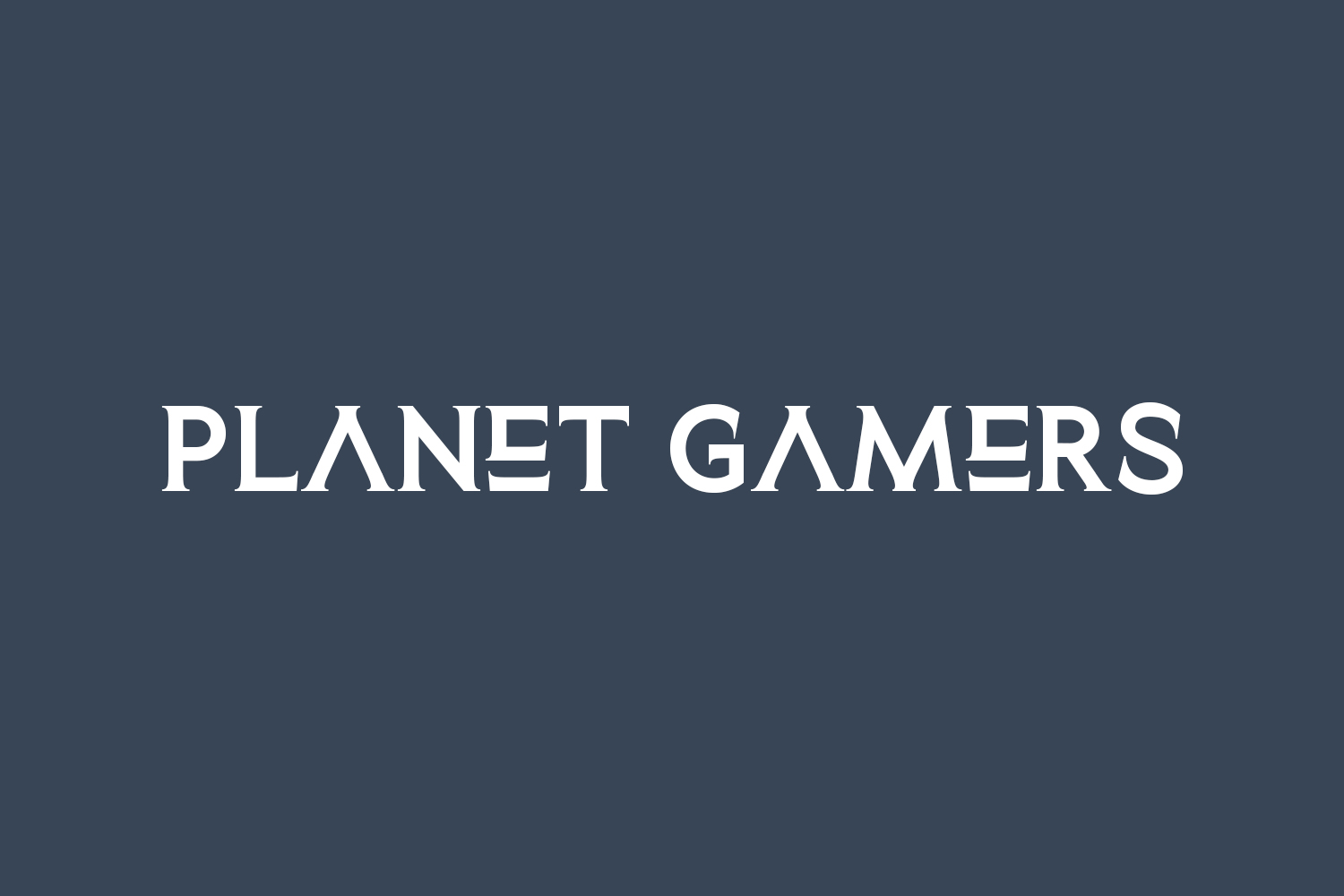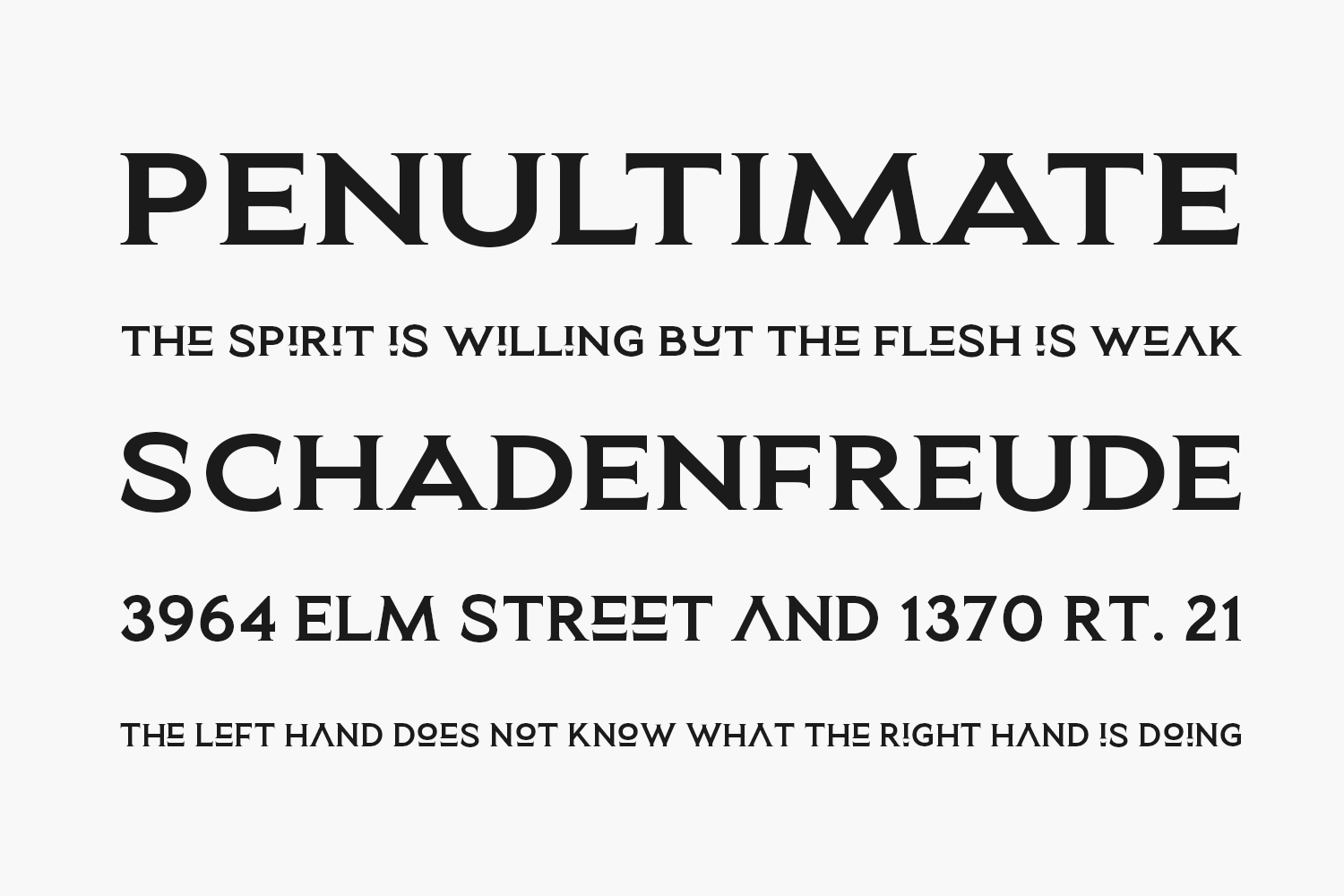
Planet Gamers Free Font is a bold and modern looking serif font. This font reads as strong, confident, and dynamic and can add tons of assertive character to your designs. Planet Gamers Free Font is free for personal use only. Please purchase the full version for commercial use.
Designed by Saridezra